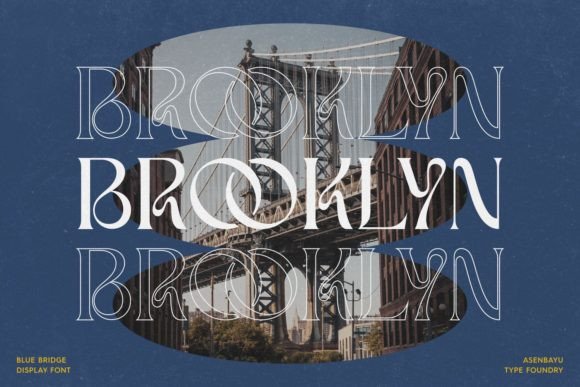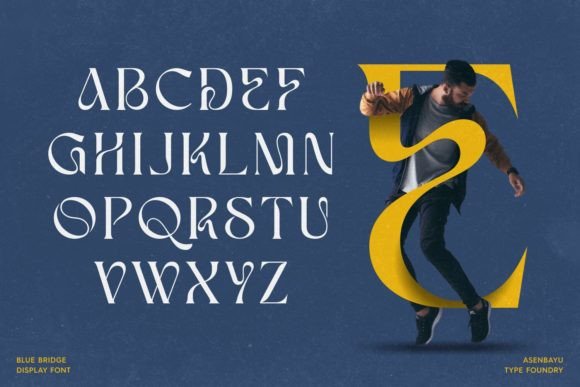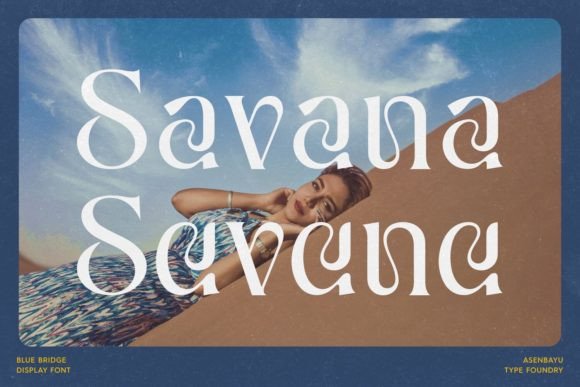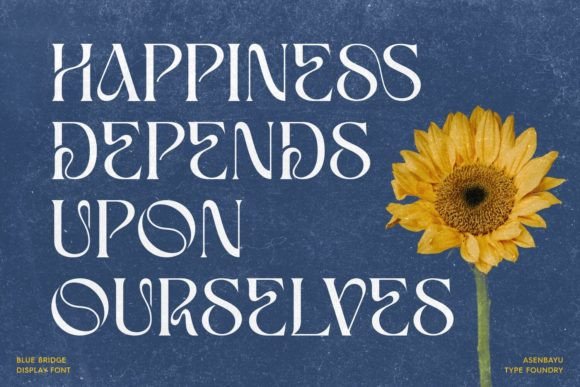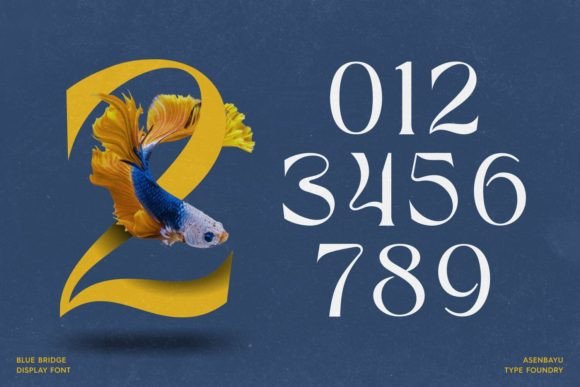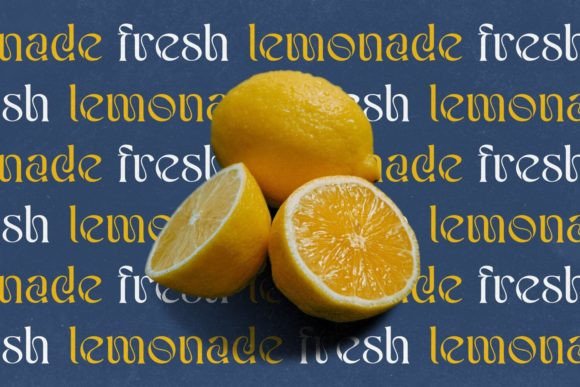
Introducing Blue Bridge Font: Elevate Your Designs with Elegance and Sophistication
In the world of typography, fonts play a crucial role in conveying the tone and personality of a design. For designers and crafters looking to add a touch of elegance and sophistication to their work, the Blue Bridge Font is an excellent choice. This creative decorative sharp serif display font is designed to make a statement, combining the aesthetic characteristics of serifs and decorative flow shapes to create a truly unique visual experience.
What Makes Blue Bridge Font Stand Out?
Blue Bridge Font is an experimental font that pushes the boundaries of traditional typography. By merging sharp serif feet with beautifully curved lines, this font presents a new experience in elegant and attractive design. The combination of these elements creates a distinctive look that is both modern and vintage, making it suitable for a wide range of design applications.
Key Features of Blue Bridge Font
- Sharp Serif Feet: The sharp serif feet of Blue Bridge Font add a touch of sophistication and elegance, making it perfect for designs that require a high level of refinement.
- Beautifully Curved Lines: The curved lines of this font add a decorative flow, creating a sense of movement and fluidity that draws the viewer’s eye.
- Versatility: Blue Bridge Font can be used in both modern and vintage designs, making it a versatile choice for designers and crafters.
Design Applications for Blue Bridge Font
Blue Bridge Font is suitable for a wide range of design applications, including:
- Attractive Packaging Label Designs: The elegant and sophisticated look of Blue Bridge Font makes it perfect for packaging label designs that require a touch of luxury.
- Unique Logos: This font is ideal for creating unique and memorable logos that stand out from the crowd.
- Trendy Poster Designs: Blue Bridge Font can add a touch of sophistication and elegance to poster designs, making them more eye-catching and effective.
- Fashion Designs: The font’s elegant and refined look makes it suitable for fashion designs, including clothing labels, advertisements, and editorial content.
Why Choose Blue Bridge Font?
With so many fonts available, why choose Blue Bridge Font? Here are just a few reasons:
- Unique Look: Blue Bridge Font offers a unique and distinctive look that sets it apart from other fonts.
- Versatility: This font can be used in a wide range of design applications, making it a versatile choice for designers and crafters.
- Elegance and Sophistication: Blue Bridge Font adds a touch of elegance and sophistication to any design, making it perfect for projects that require a high level of refinement.
| Font Name | Blue Bridge Font |
| Author | asenbayu |
In conclusion, Blue Bridge Font is an excellent choice for designers and crafters looking to add a touch of elegance and sophistication to their work. With its unique combination of sharp serif feet and beautifully curved lines, this font offers a distinctive look that is both modern and vintage. Whether you’re creating packaging label designs, unique logos, trendy poster designs, or fashion designs, Blue Bridge Font is a versatile and elegant choice that is sure to elevate your designs to the next level.